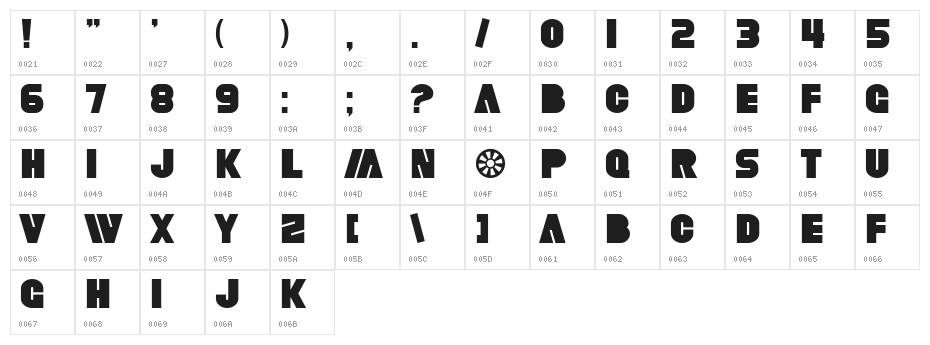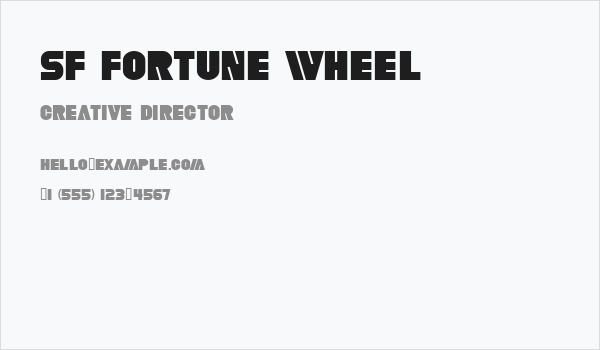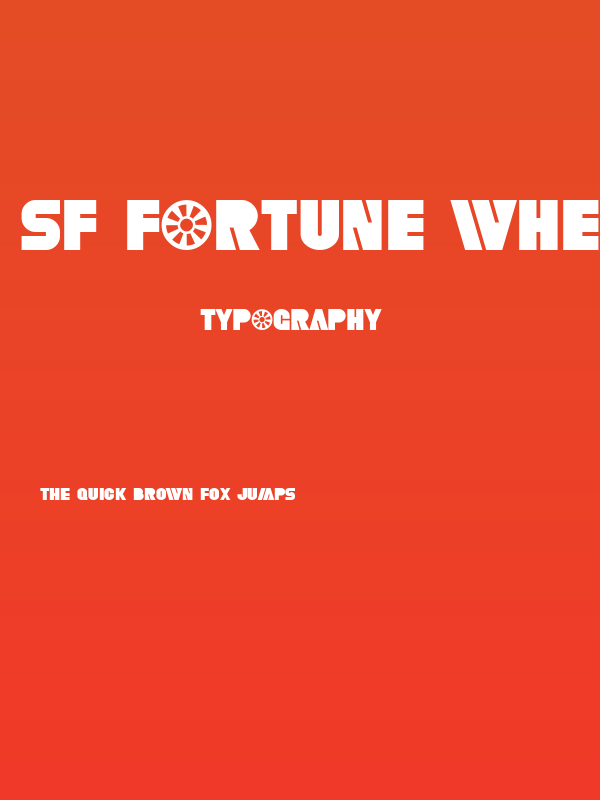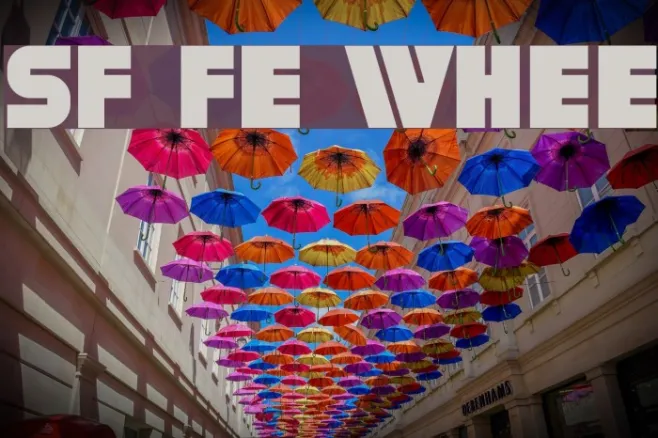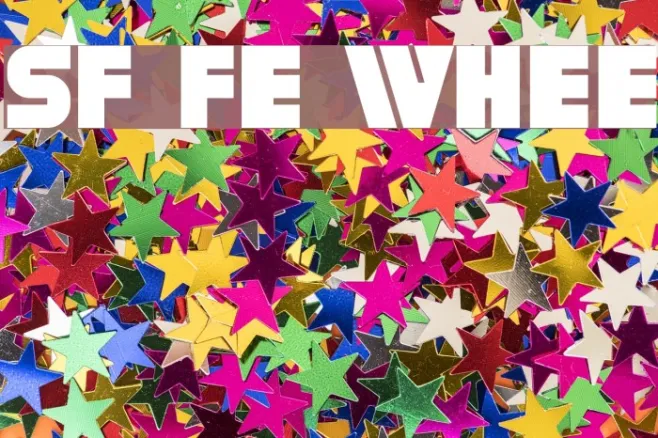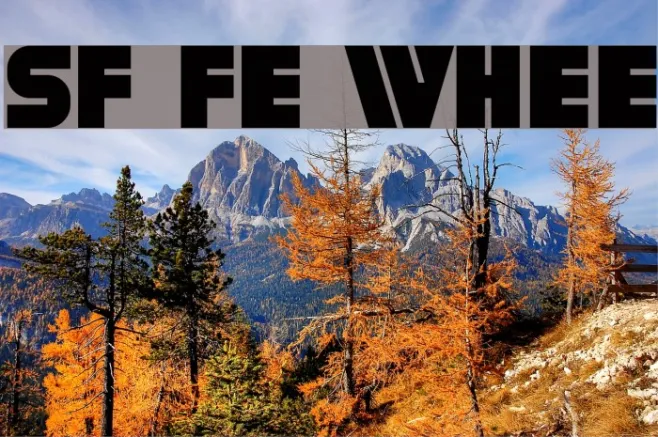
SF Fortune Wheel Font
SF Fortune Wheel Description
This font features a bold and striking design with thick, blocky characters that exude a sense of strength and modernity. The uppercase letters are particularly distinctive, with geometric shapes and sharp angles that create a dynamic and impactful appearance. The inclusion of a unique wheel-like design within the letter 'O' adds a playful and creative touch, setting it apart from more conventional typefaces. The numbers and special characters maintain the same bold and geometric style, ensuring consistency across all elements. This font is ideal for projects that require a strong visual presence and a modern aesthetic.